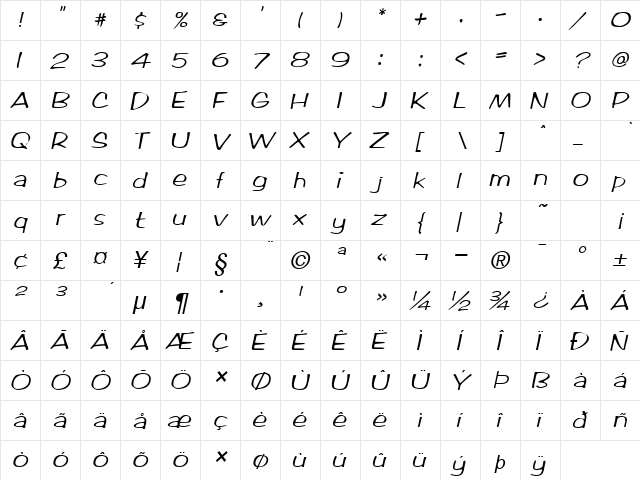
Marlo Italic
Design Context for Marlo Typeface
Marlo offers clean, dependable letterforms without strong stylistic allegiance, making it a practical choice for designers who need flexibility. Its italic angle brings a sense of urgency and motion to the letterforms.
Pro Tip: Use Marlo for emphasis, pull quotes, and subheadings where its slanted energy can add rhythm to the layout.